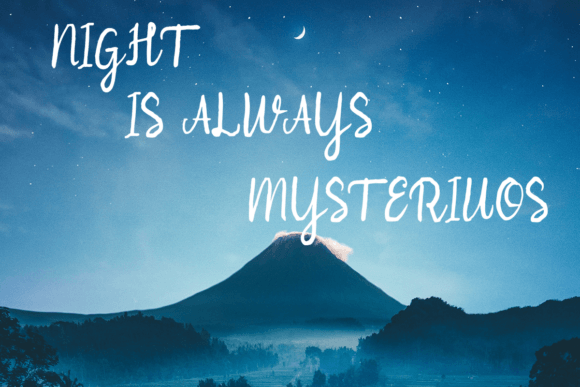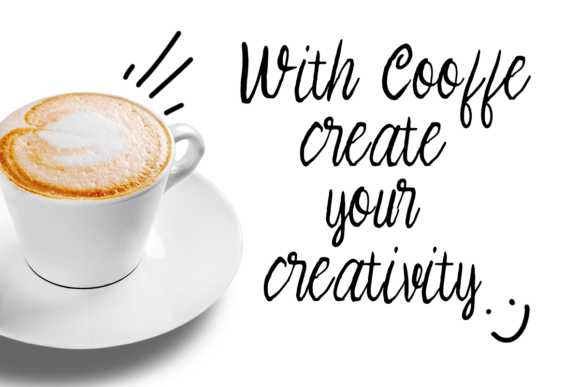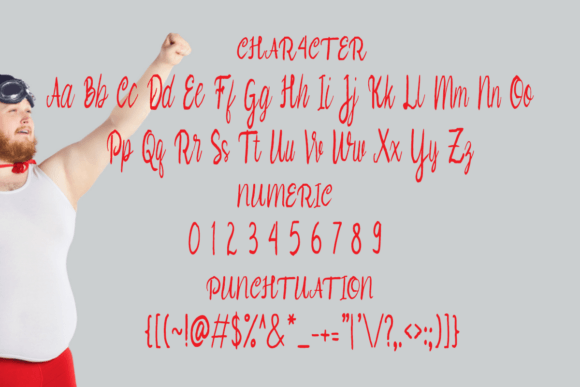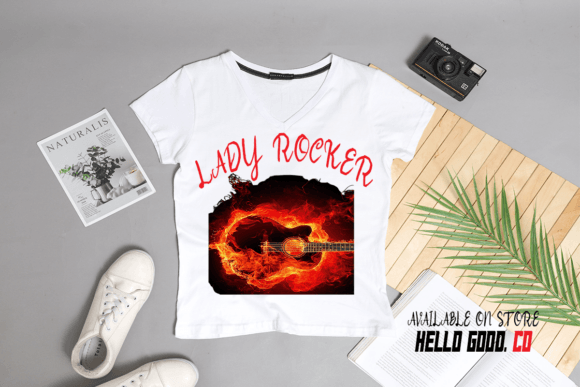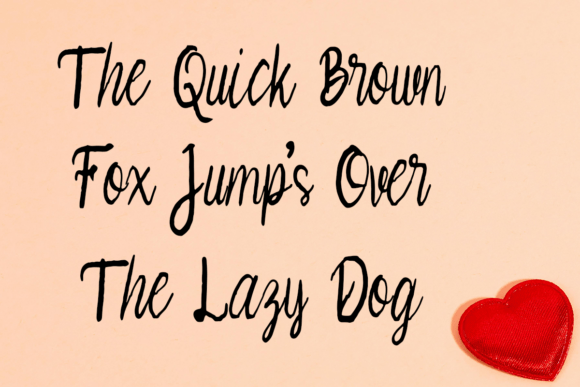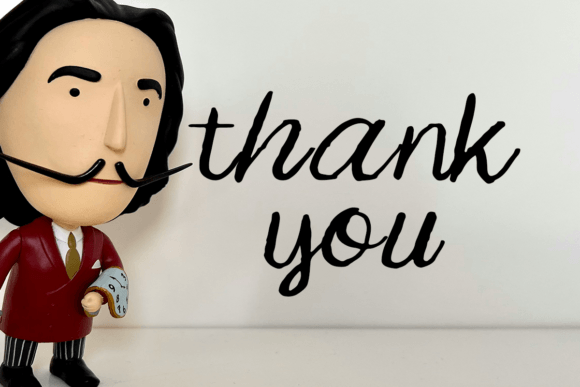
Introducing Deteroit Hand Font: The Perfect Handcrafted Script for Your Designs
Are you tired of using generic, cookie-cutter fonts that lack personality and charm? Look no further than Deteroit Hand, a beautiful handcrafted script-style font that brings an authentic and natural feel to your designs. With its organic flow and mimicked handwriting style, Deteroit Hand is perfect for projects that require a personal, human touch.
The Unique Characteristics of Deteroit Hand
Deteroit Hand is a free-spirited font that boasts casual, yet elegant lines, giving your text a unique charm that’s hard to find in digital fonts. Its strokes are carefully crafted to mimic real handwriting, making it perfect for designers and crafters who want to add a touch of warmth and character to their work. Whether you’re creating logos, invitations, or branding materials, Deteroit Hand is the perfect choice.
The Benefits of Using Deteroit Hand
So, what makes Deteroit Hand so special? Here are just a few benefits of using this amazing font:
- Authentic and natural feel: Deteroit Hand’s handcrafted style gives your designs a genuine, human touch that’s hard to replicate with digital fonts.
- Perfect for personal projects: Whether you’re creating invitations, greeting cards, or personal branding materials, Deteroit Hand adds a touch of warmth and personality to your work.
- Unique and eye-catching: Deteroit Hand’s organic flow and elegant lines make it stand out from more generic fonts, adding visual interest to your designs.
- Versatile: From logos and branding materials to invitations and social media graphics, Deteroit Hand is versatile enough to use in a wide range of projects.
How to Use Deteroit Hand in Your Designs
Using Deteroit Hand in your designs is easy! Here are a few tips to get you started:
- Pair it with a simple font: Deteroit Hand’s elegant lines and organic flow make it a great choice for headlines and titles. Pair it with a simple font for body text to create visual interest and hierarchy.
- Experiment with colors: Deteroit Hand looks great in a range of colors, from bold and bright to soft and pastel. Experiment with different colors to find the perfect fit for your design.
- Play with textures: Deteroit Hand’s handcrafted style makes it a great choice for designs with texture and depth. Try adding a texture or background to give your design an extra layer of interest.
Who is Deteroit Hand Perfect For?
Deteroit Hand is perfect for designers, crafters, and DIY enthusiasts who want to add a personal touch to their work. Here are a few examples of who might love Deteroit Hand:
- Graphic designers: Whether you’re working on a branding project or creating social media graphics, Deteroit Hand is a great choice for adding a touch of personality to your designs.
- Stationery designers: Deteroit Hand is perfect for creating invitations, greeting cards, and other stationery items that require a personal touch.
- Crafters and DIY enthusiasts: If you love crafting, scrapbooking, or other DIY projects, Deteroit Hand is a great choice for adding a handmade touch to your work.
In conclusion, Deteroit Hand is a beautiful handcrafted script-style font that brings an authentic and natural feel to your designs. With its organic flow, elegant lines, and unique charm, Deteroit Hand is perfect for projects that require a personal, human touch. Whether you’re a designer, crafter, or DIY enthusiast, Deteroit Hand is a great choice for adding warmth and character to your work. So why wait? Download Deteroit Hand today and start creating stunning designs that stand out from the crowd!